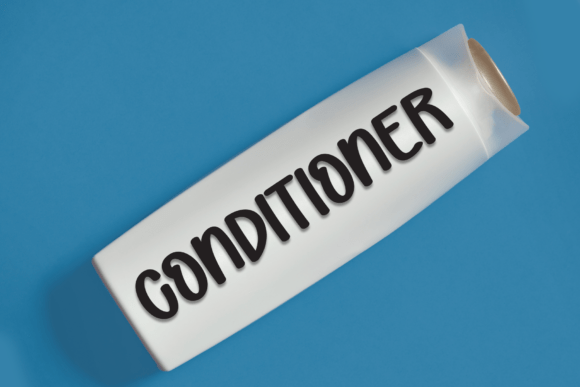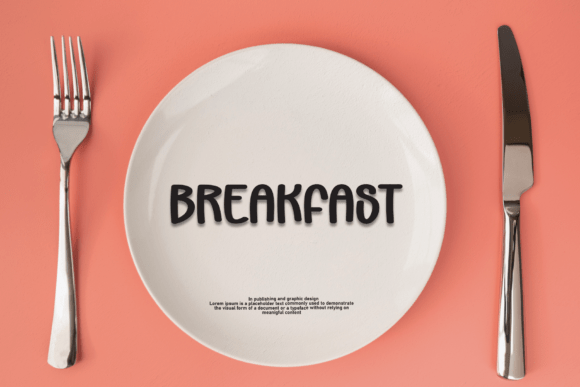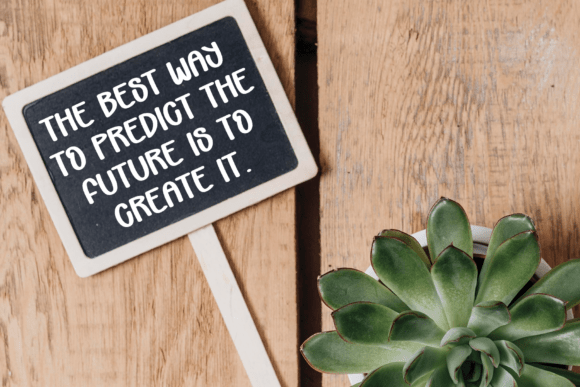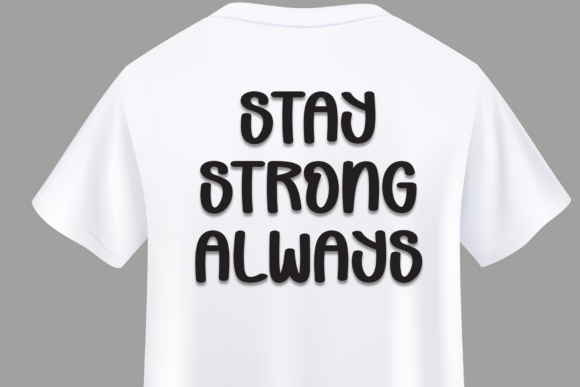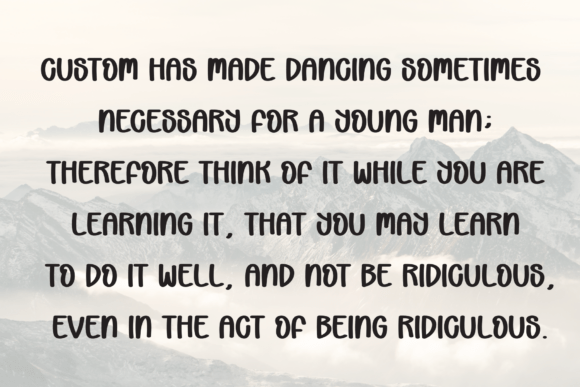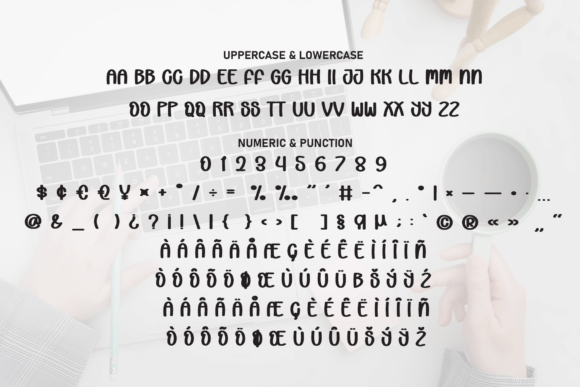
Introduction to Digital Designer Font
Do you remember the feeling of excitement and anticipation when you’re about to start a new creative project? The blank canvas, the endless possibilities, and the thrill of bringing your ideas to life? As a designer, you know how a single font can make or break the entire aesthetic of your work.
That’s why we’re thrilled to introduce the Digital Designer Font, a delightful and charming handwritten display font that’s sure to add a touch of whimsy to any design project. This high-quality font is a valuable addition to any designer’s toolkit, offering a free download option that’s perfect for those looking to add a sprinkle of joy to their work.
Whether you’re working on a wedding invitation, a special occasion card, or a creative project that requires a unique touch, the Digital Designer Font is an exceptional pick. With its transparent background and lively, quirky twist, it’s the perfect design resource for anyone looking to elevate their design game.
Key Features of Digital Designer Font
- Comes in 4 font styles, each with a unique set of characteristics to suit different creative needs
- Transparent background, allowing for easy integration with various design elements and backgrounds
- High-quality design resource ideal for branding, logos, typography, and other creative projects
- Designed with a modern and sleek aesthetic, making it perfect for digital design, web design, and UI/UX projects
Honest Review: Digital Designer Font
I recently came across the Digital Designer Font, and I must say it’s been a game-changer for my creative projects. This font is a fantastic design resource that offers a high-quality experience.
- The font itself is incredibly versatile and works well for both digital and print designs.
- The transparent background option is a huge plus for designers who need to create visually appealing graphics.
- The font is highly customizable, allowing me to tailor it to my specific design needs.
- One potential drawback is that the font may not be suitable for very small text sizes, as it can become difficult to read.
- The font family is relatively small, so users may not have as many options as they would with larger font families.
Overall, I’m really impressed with the Digital Designer Font. It’s a solid choice for designers looking for a high-quality font that’s easy to use. While it may have some limitations, the benefits far outweigh the drawbacks.
The Digital Designer Font is a versatile design resource that can be used in a variety of creative projects, including logos, business cards, brochures, and social media graphics. Its transparent background makes it easy to use in designs where a clean and minimalist look is desired.
Q: Is the Digital Designer Font available with a transparent background?
Yes, the Digital Designer Font is available with a transparent background, making it ideal for design projects that require a clean and minimalist look. The transparent background allows you to easily overlay the font on any background, ensuring a seamless design experience.